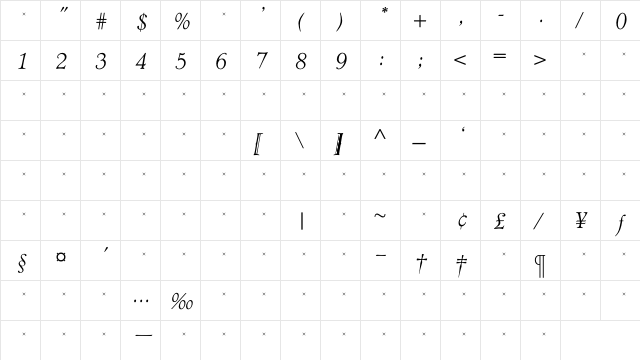
TCAdministerLtItalTab Regular
Design Context for TCAdministerLtItalTab Typeface
TCAdministerLtItalTab offers clean, dependable letterforms without strong stylistic allegiance, making it a practical choice for designers who need flexibility.